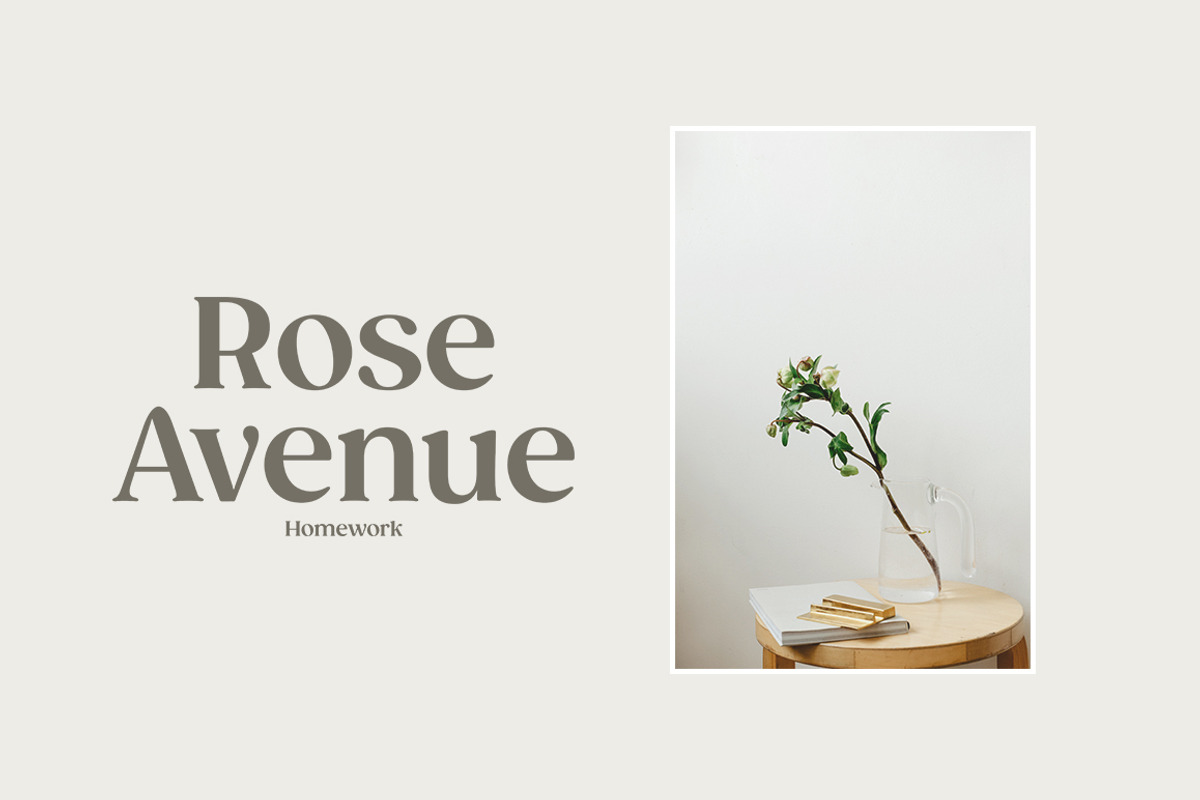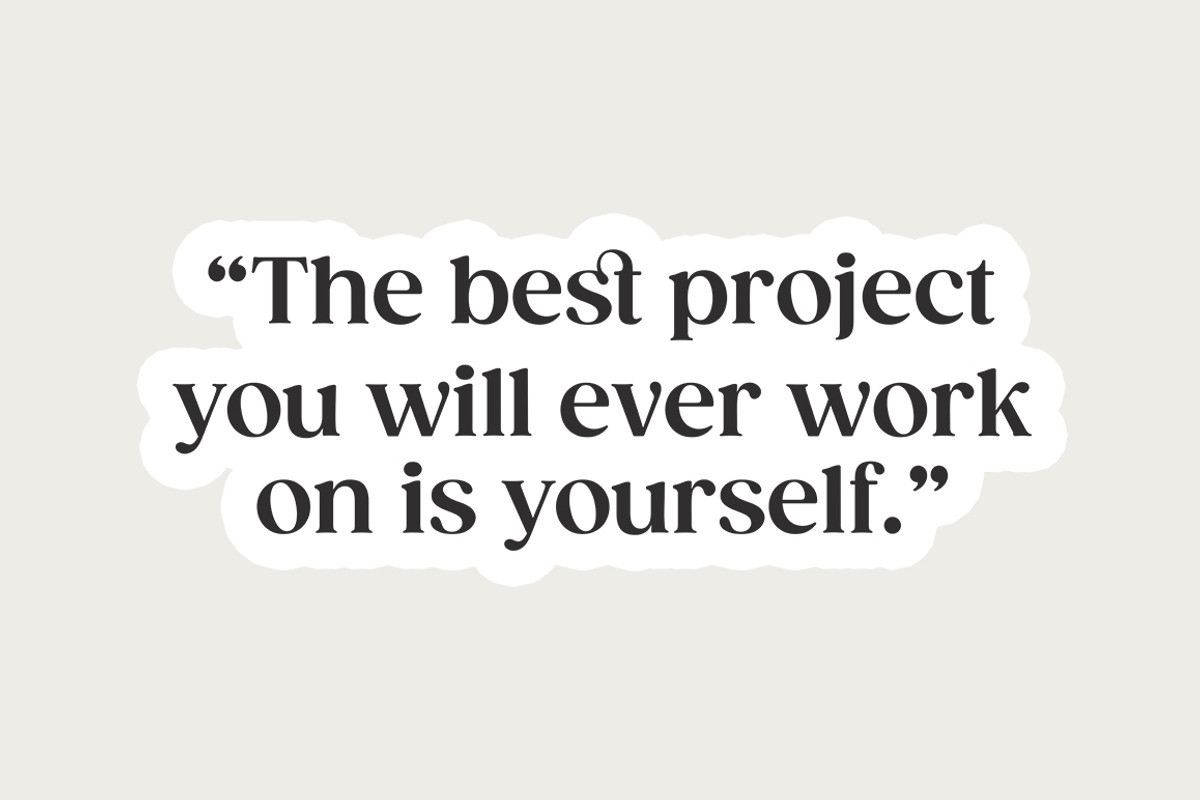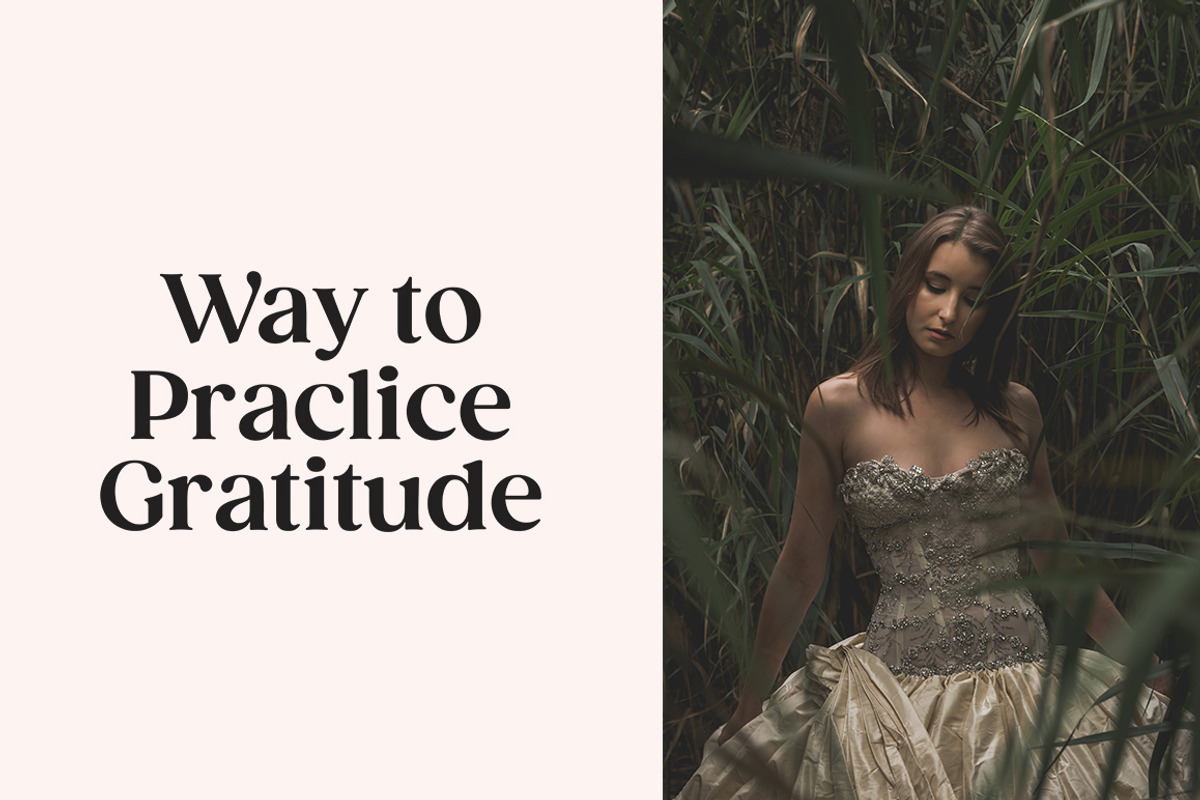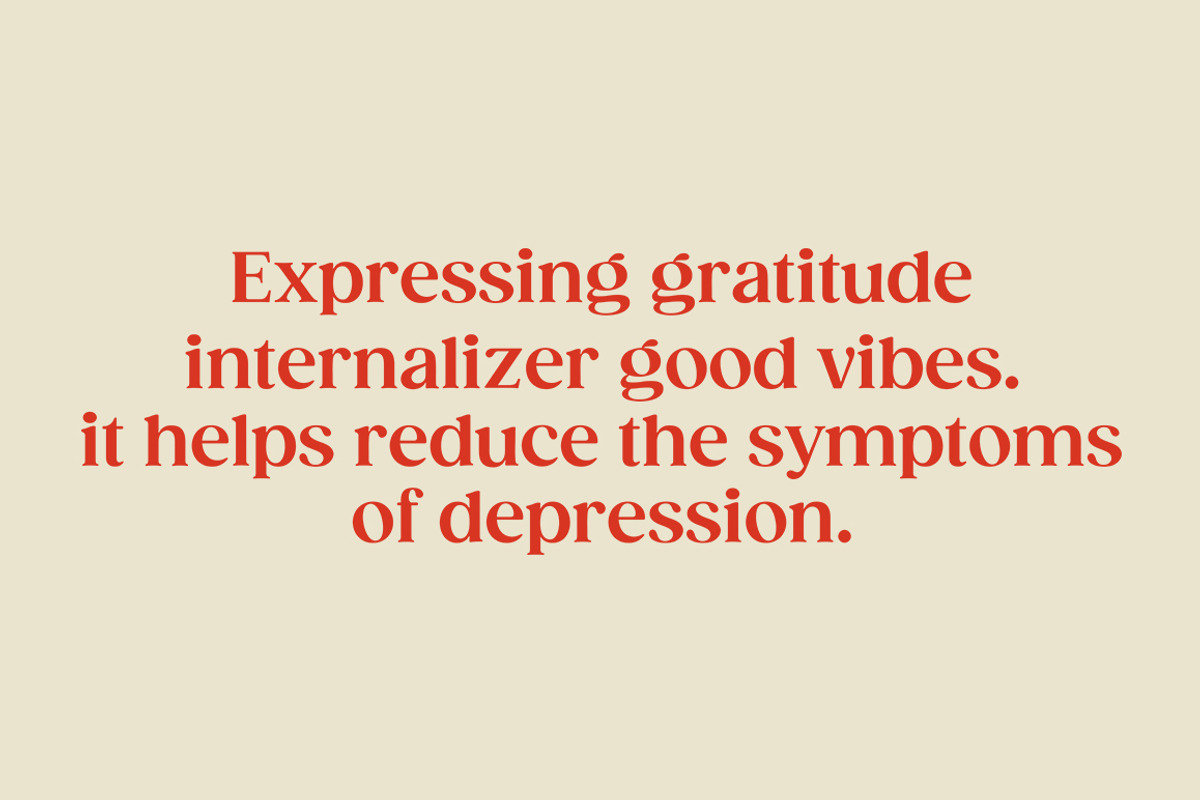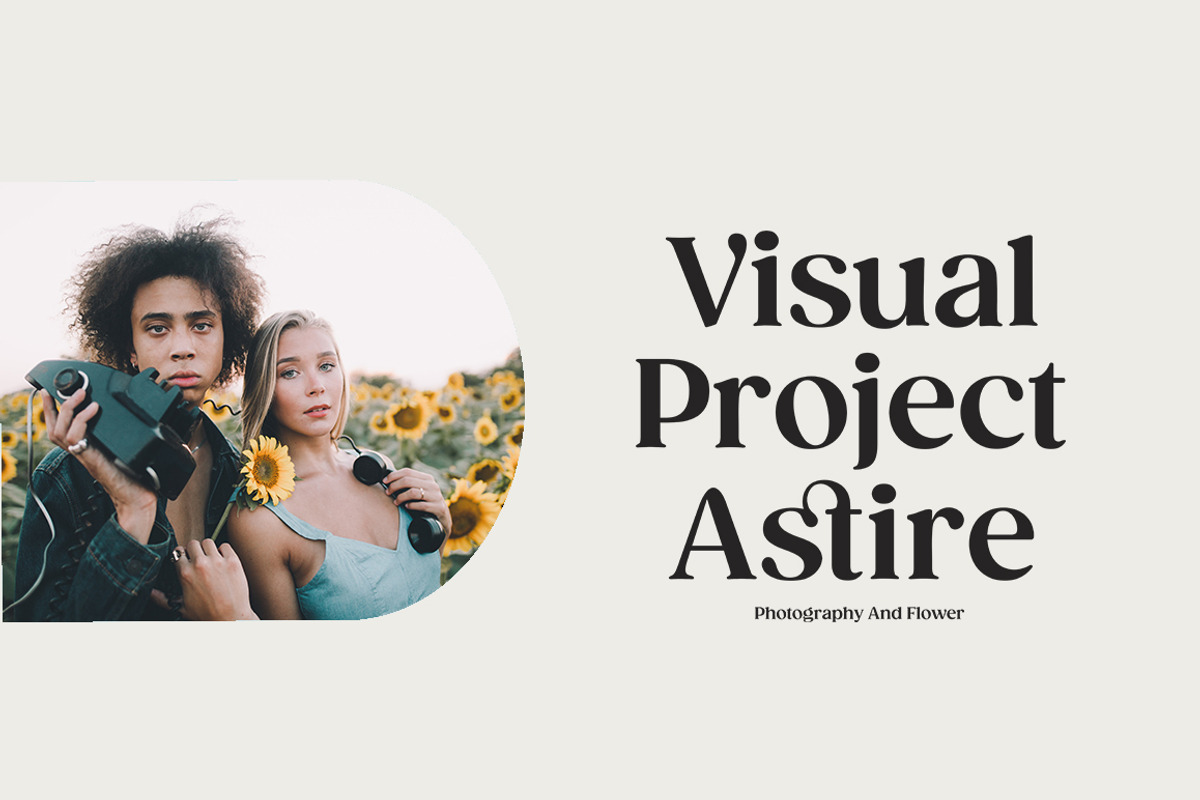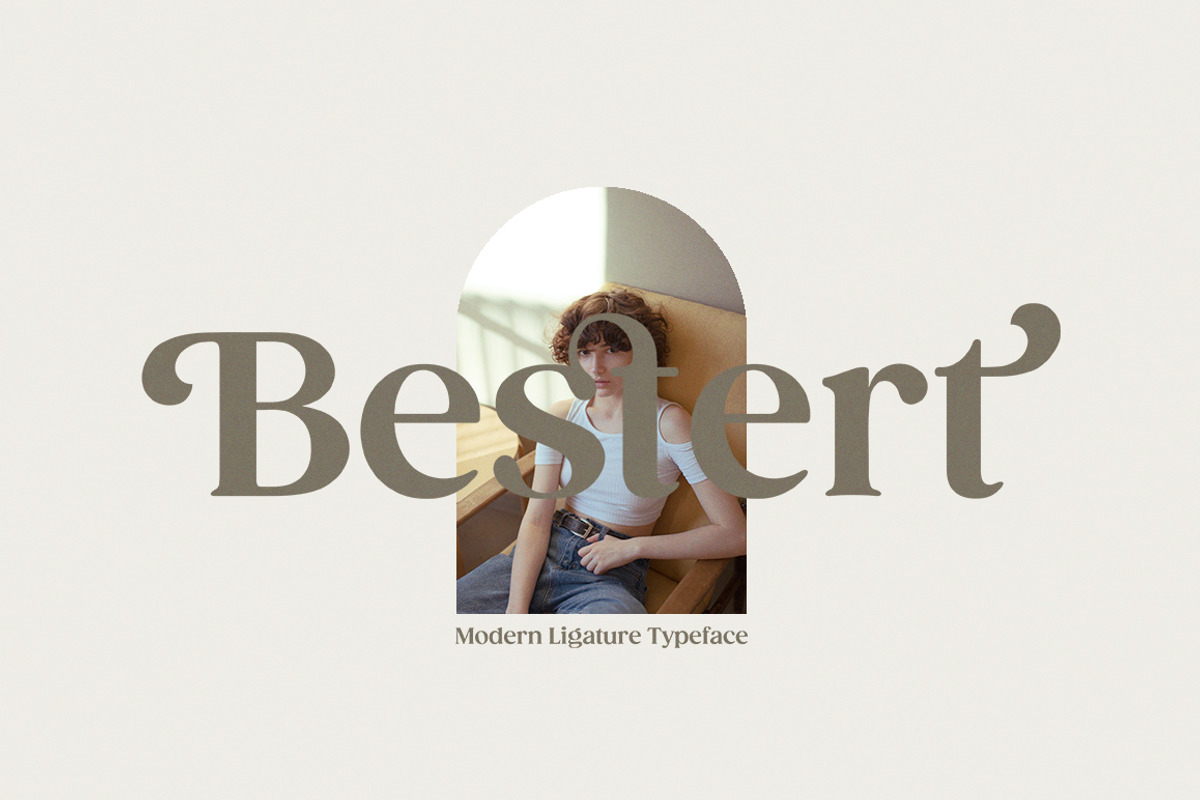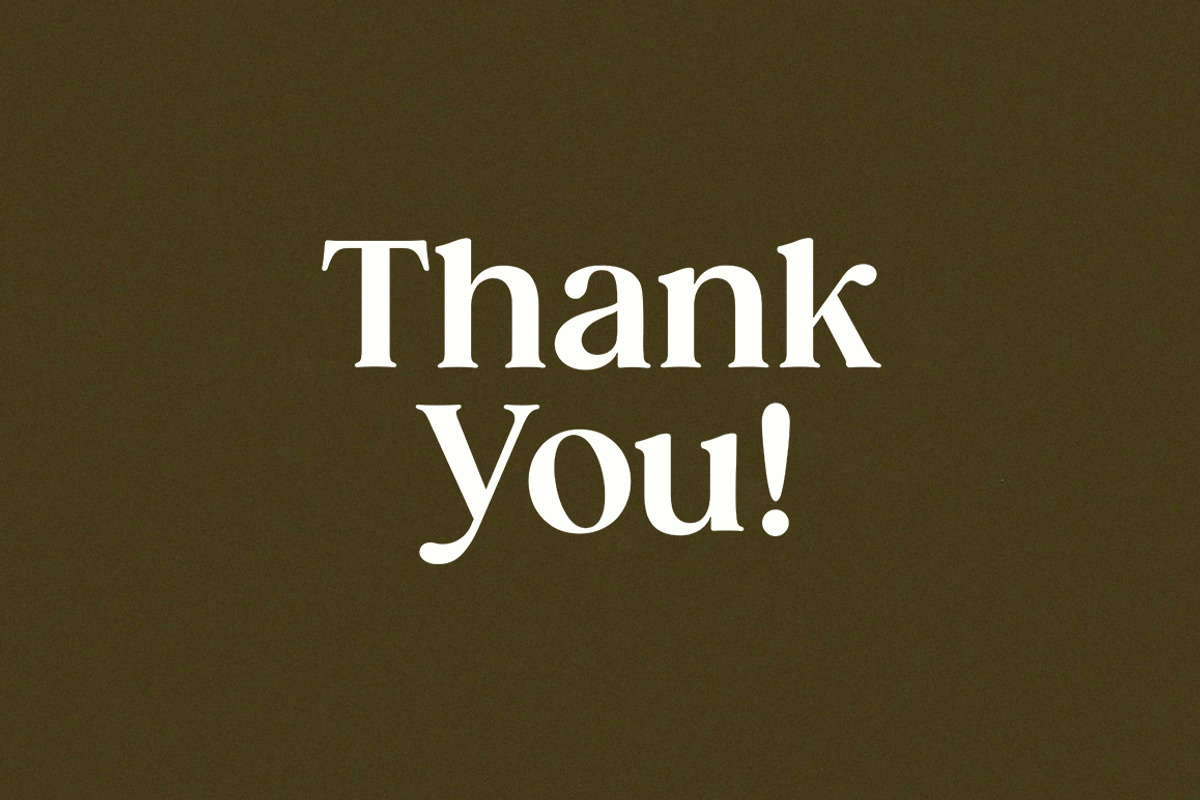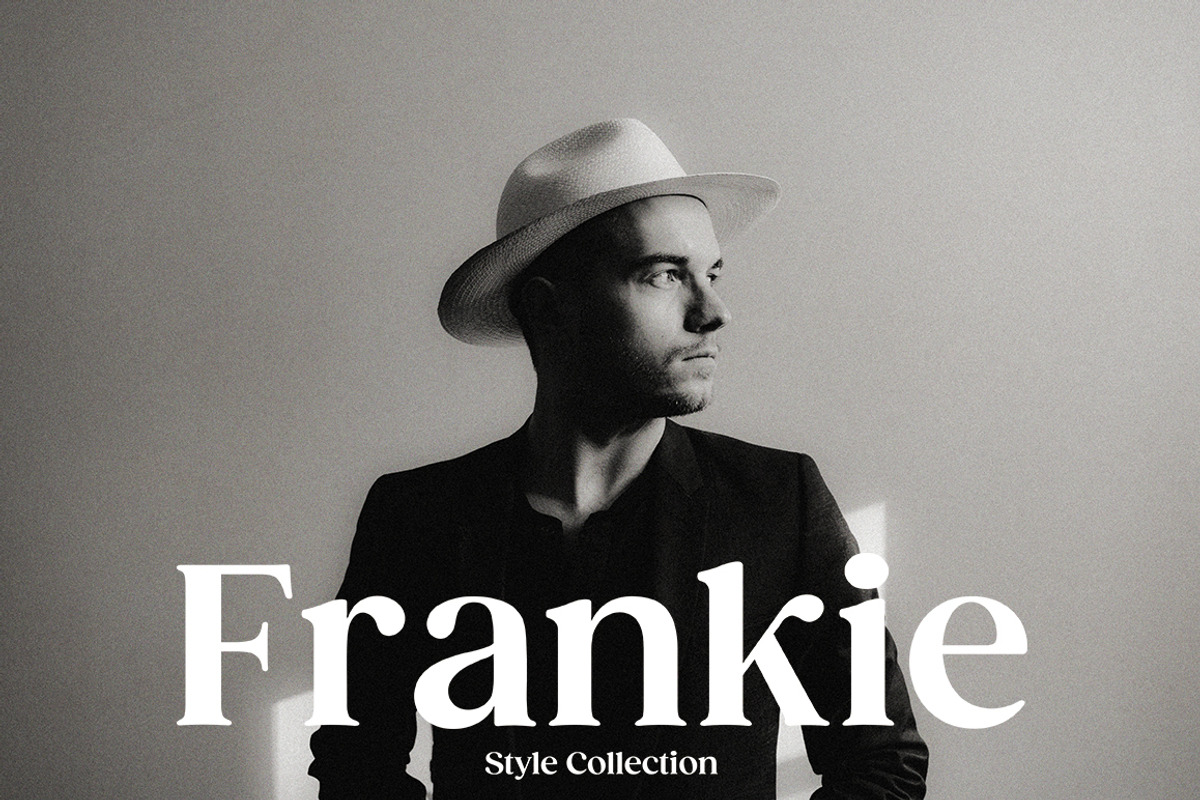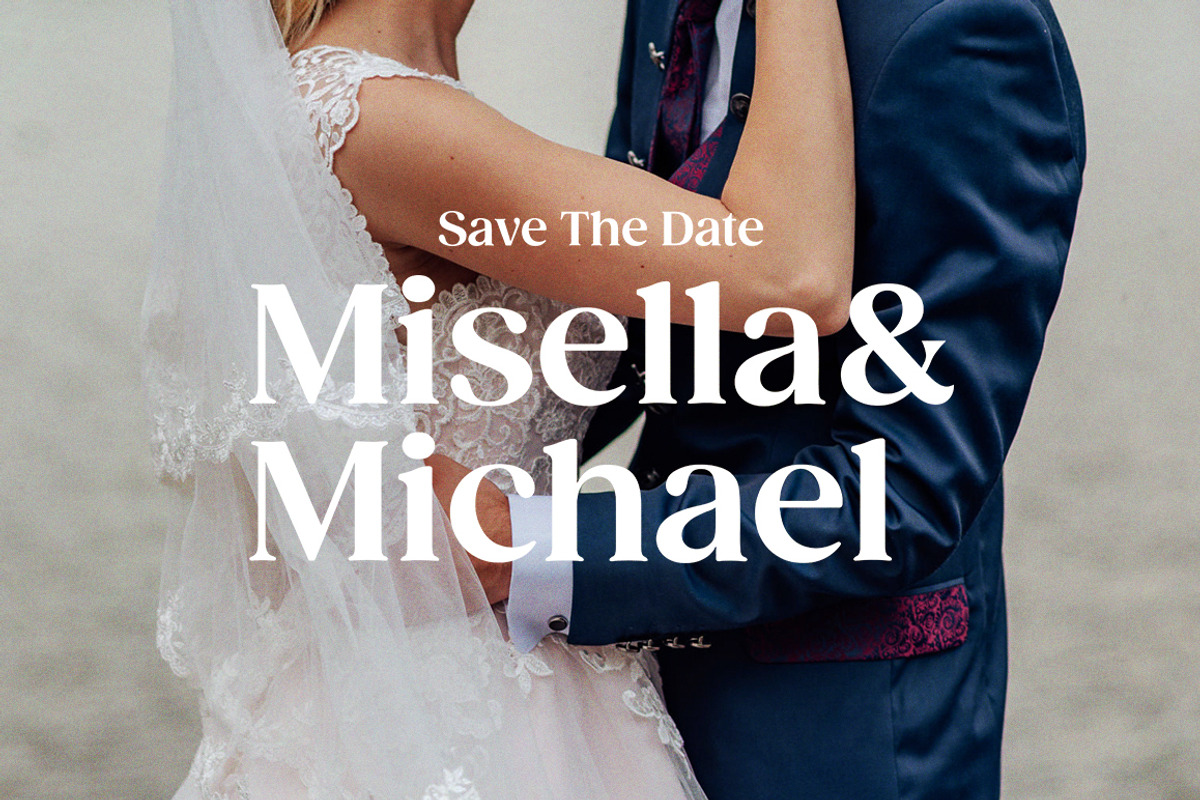
Bestert | Ligature Serif Font
Bestert Typeface, a modern and ligature serif typeface that has a unique and modern style. This typeface is perfect for elegant & luxurious logos, book or movie title designs, fashion brands, magazines, clothing, letters, quotes, and more.
Ligatures and Alternate Style Sets